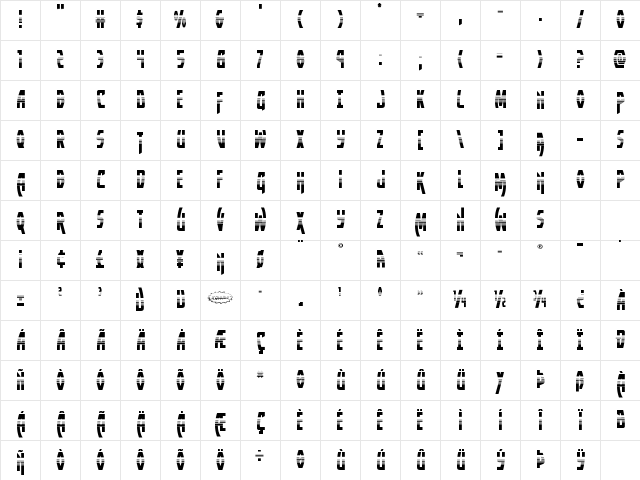
Yankee Clipper Halftone Regular Free Font
Yankee Clipper Halftone Regular
Design Context for Yankee Clipper Halftone
Yankee Clipper Halftone is a composed and adaptable typeface that performs quietly and consistently across a wide range of design contexts.